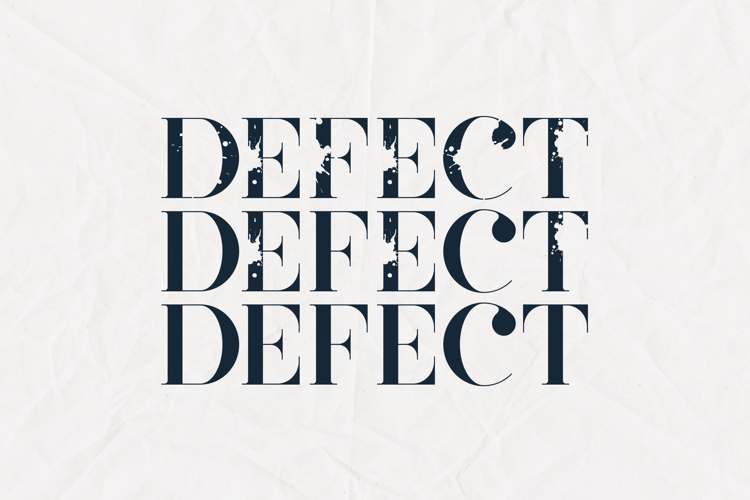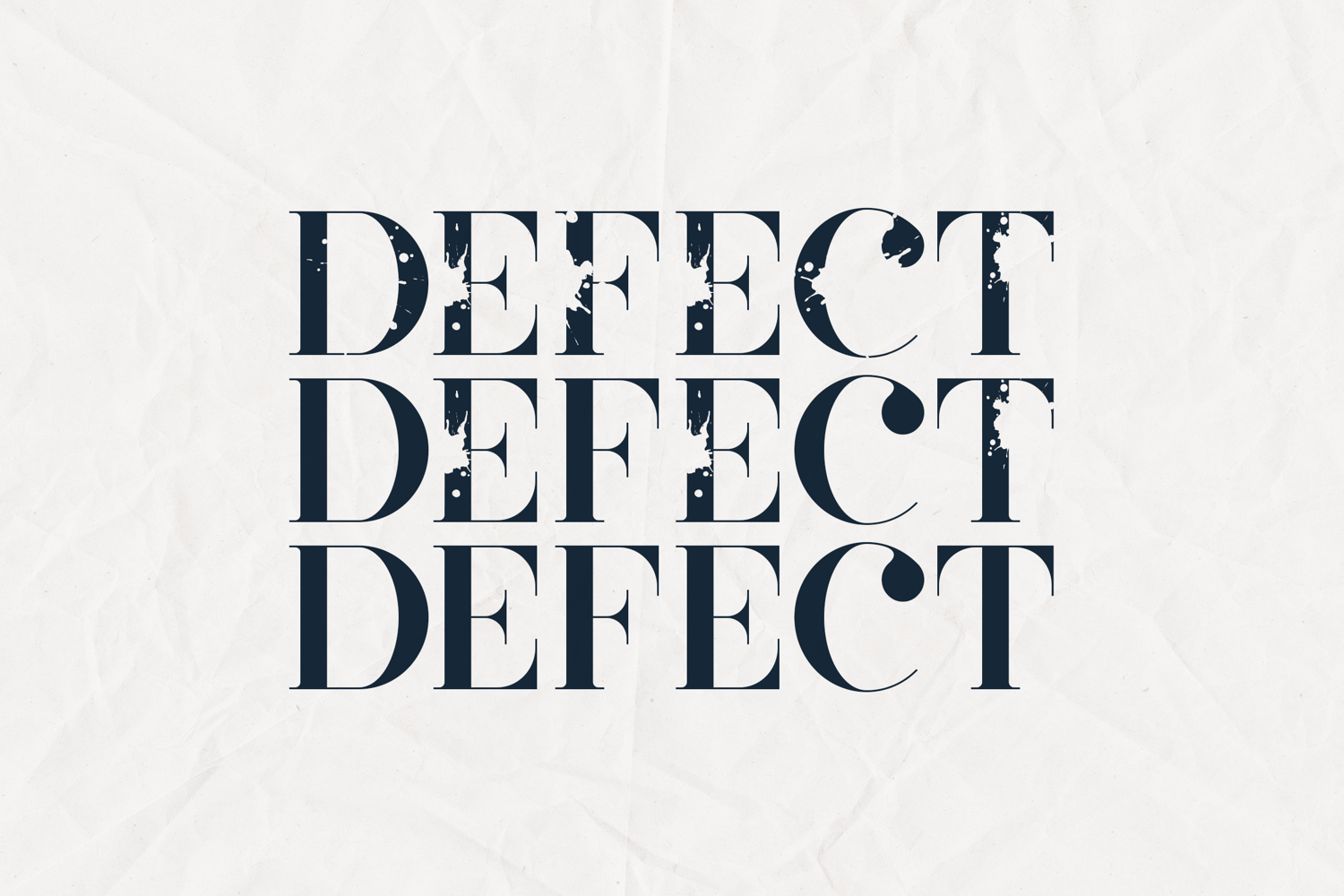
Defect Distressed Vintage Serif Font
Introducing Defect, a distinctive distressed serif display font that combines elegant vintage letterforms with authentic worn textures and imperfect details.
Designed to evoke the character of aged print, weathered signage, and timeless editorial design, Defect delivers a unique balance between sophistication and raw texture. Every letter features carefully crafted imperfections that create an organic, handcrafted appearance while maintaining excellent readability.
Perfect for branding, packaging, posters, book covers, editorial layouts, labels, apparel, restaurant branding, whiskey packaging, vintage logos, and marketing materials.
With extensive multilingual support and decorative distressed details, Defect brings personality, authenticity, and timeless charm to any design project.
Features- Uppercase Letters
- Numbers & Punctuation
- Extended Latin Characters
- Authentic Distressed Texture
- Vintage Serif Design
- High-Resolution Letter Details
- Vintage Branding
- Whiskey Labels
- Wine Packaging
- Book Covers
- Editorial Design
- Posters & Flyers
- Restaurant Branding
- Fashion Campaigns
- Logos & Badges
- Artisan Products
- Heritage Brands
- Craft Packaging